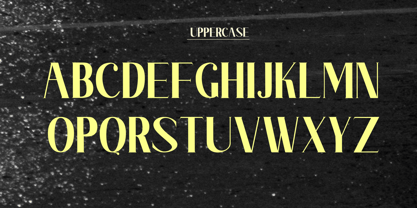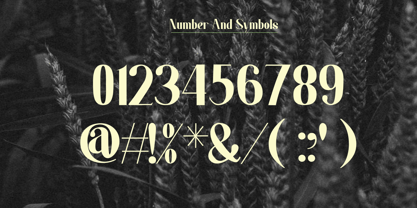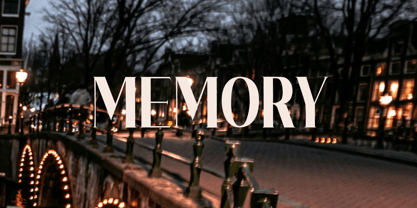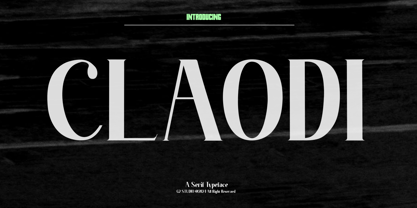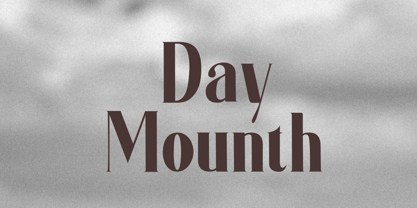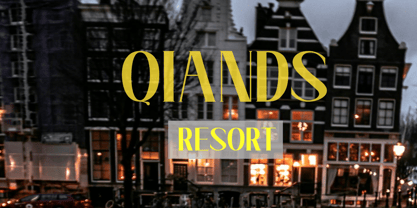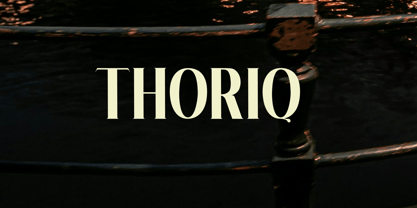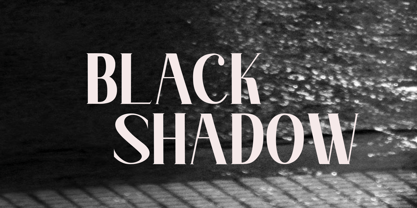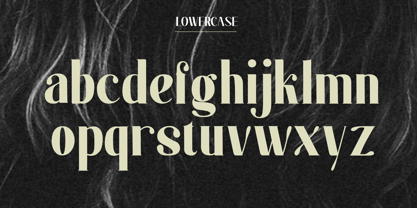
Claodi
por G2 Studio
La familia tipográfica Claodi fue diseñada por Eka Setiono y publicada por G2 Studio. Claodi contiene 1 estilos. Más información sobre esta familia
Cloudi – Elegant and Modern Serif Font
Cloudi is a serif font with an elegant and modern design, perfect for branding, logos, and editorial designs. Offering a balance of classic sophistication and high readability, Cloudi gives a professional and luxurious impression.
Diseñadores: Eka Setiono